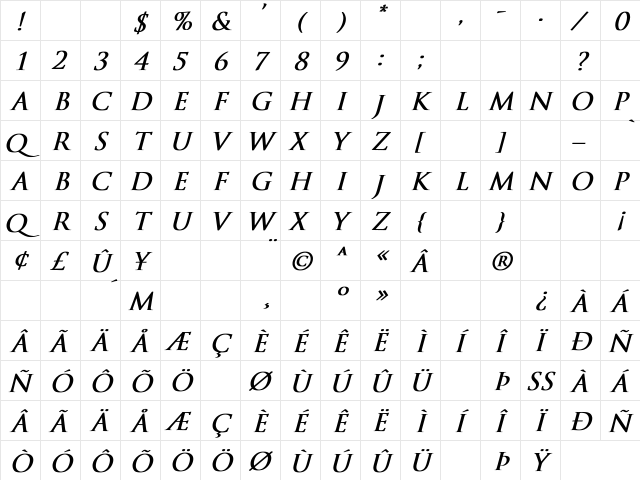
Trajan-Normal BI Bold Italic
Design Context for Trajan-Normal BI Typeface
Trajan-Normal BI is a composed and adaptable typeface that performs quietly and consistently across a wide range of design contexts. Its italic angle brings a sense of urgency and motion to the letterforms. Its bold stroke weight gives it real presence on the page.
Pro Tip: Use Trajan-Normal BI for emphasis, pull quotes, and subheadings where its slanted energy can add rhythm to the layout.